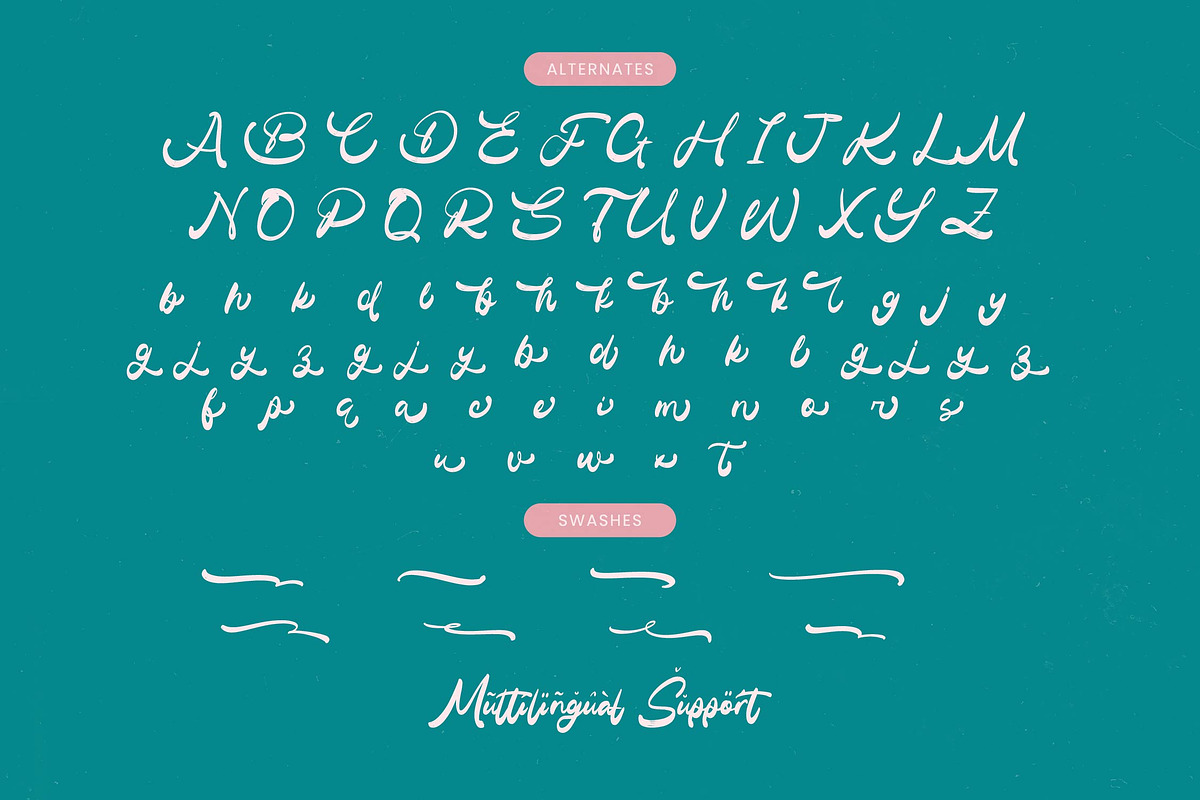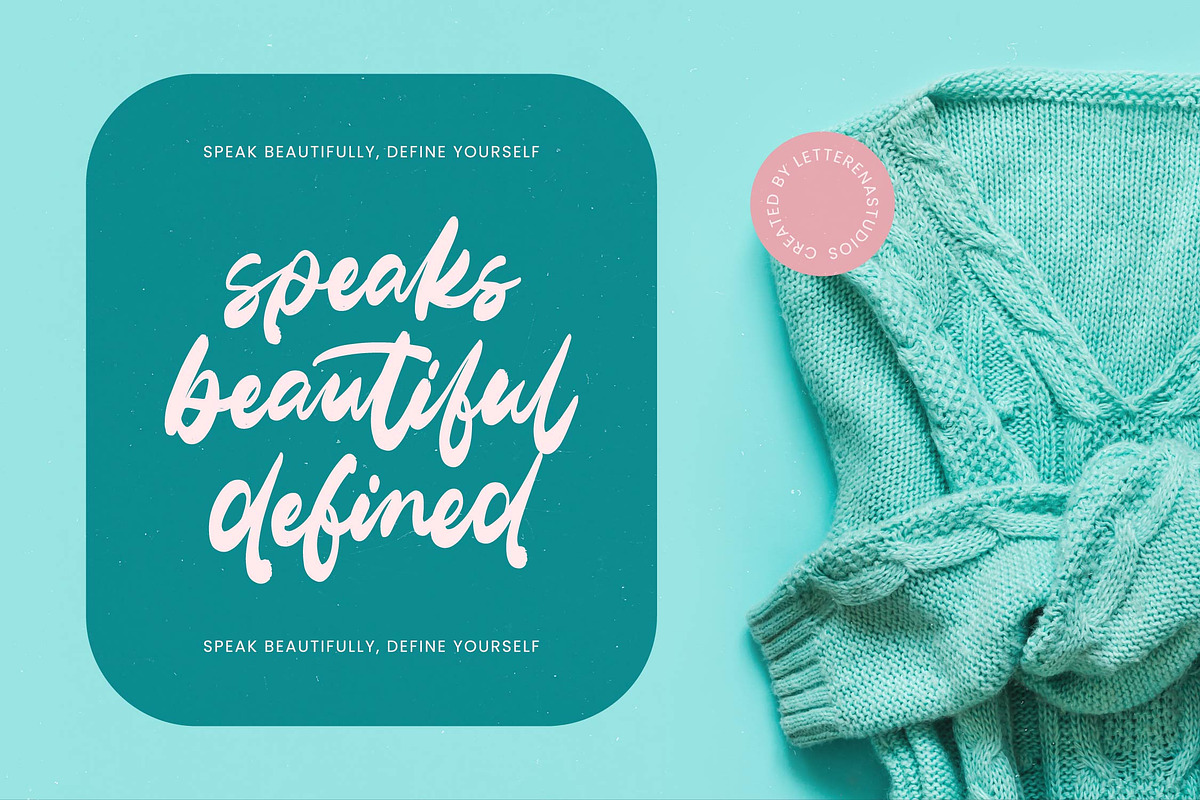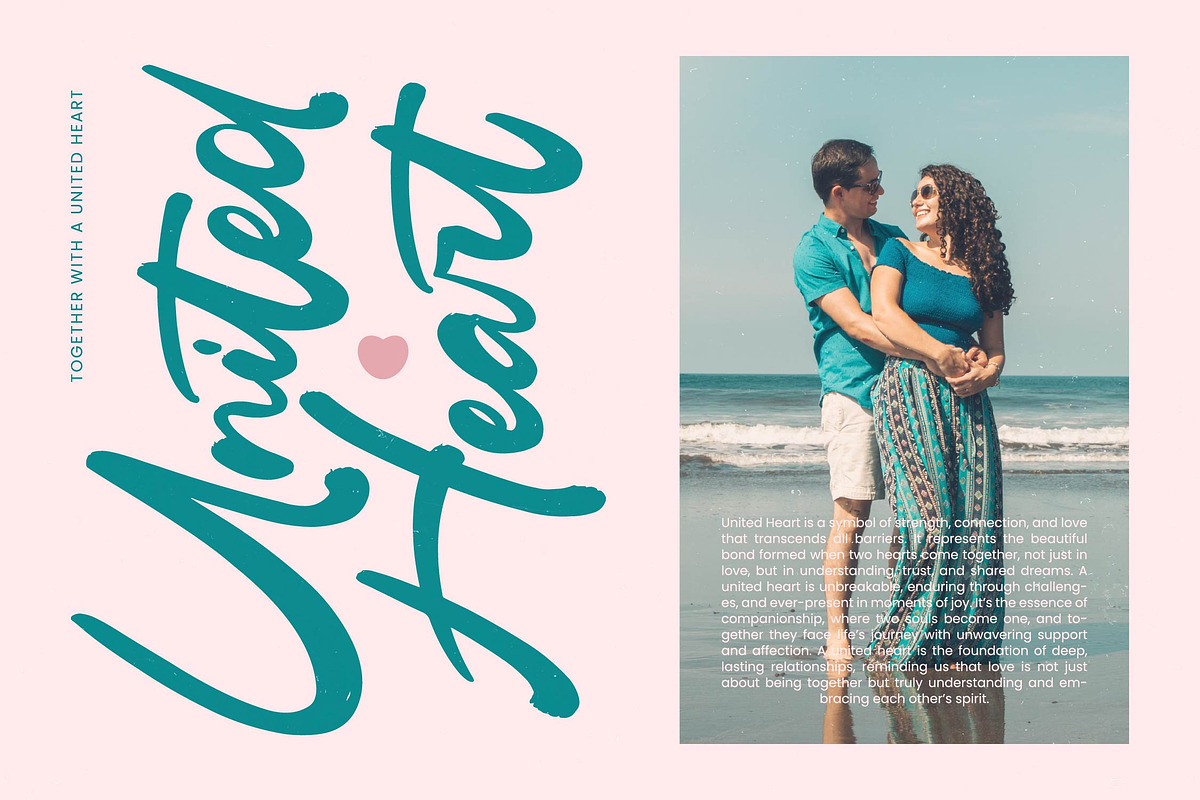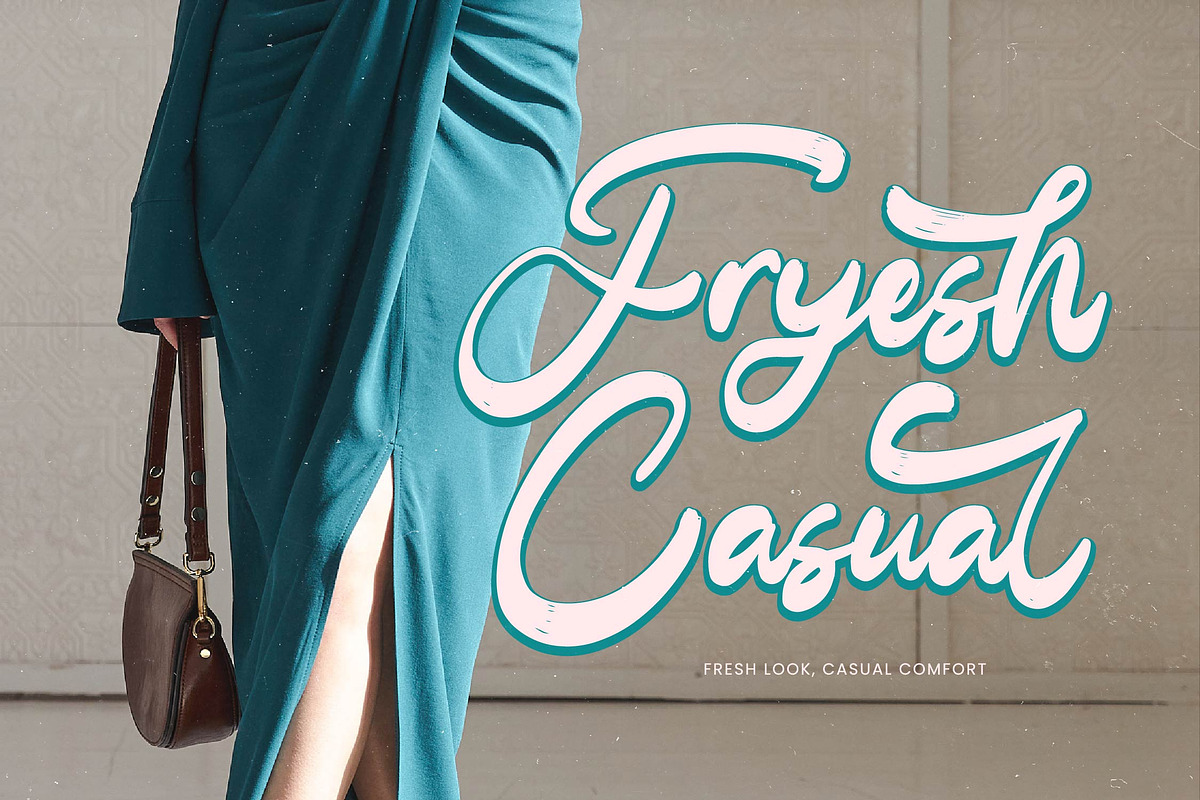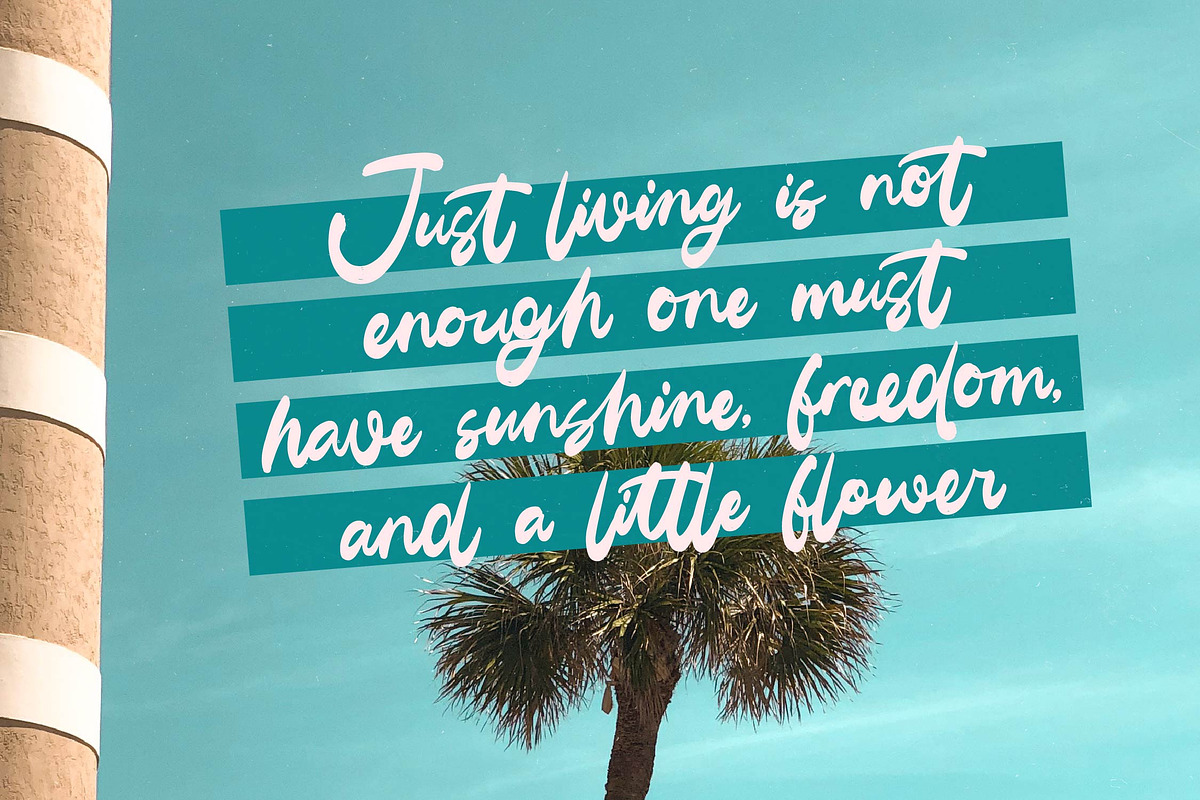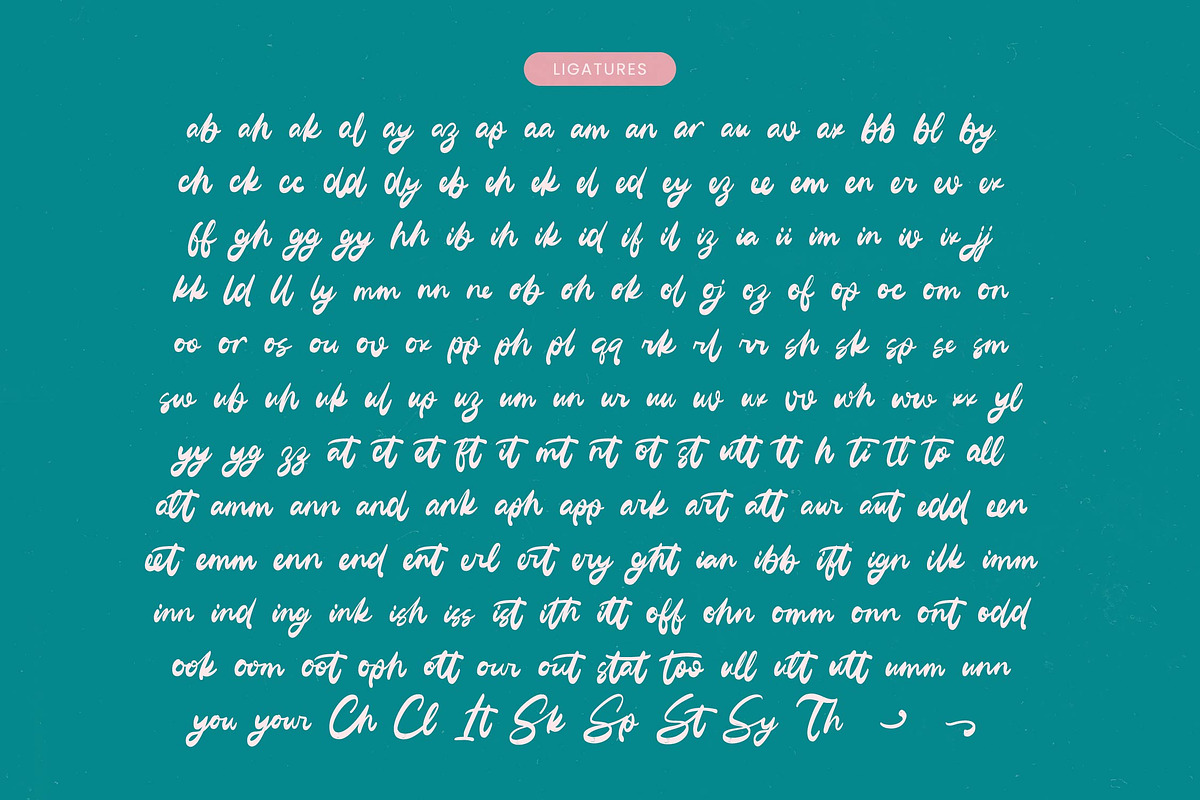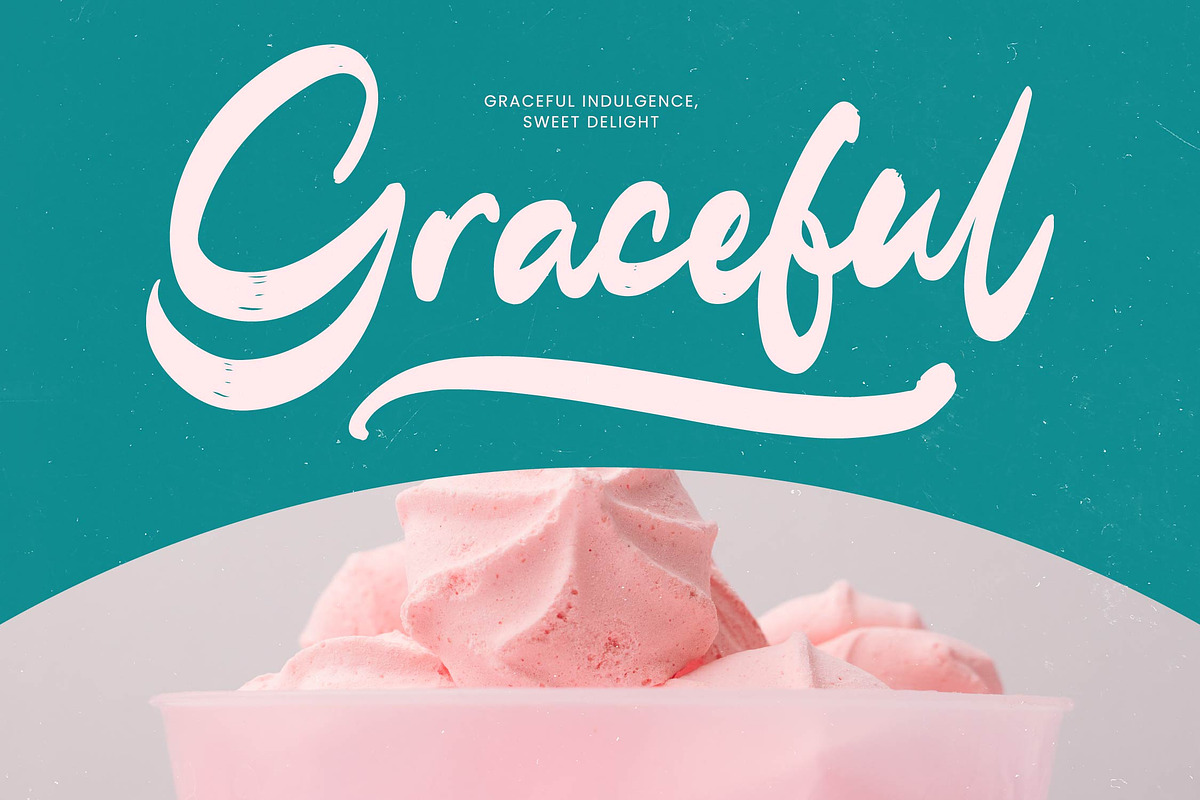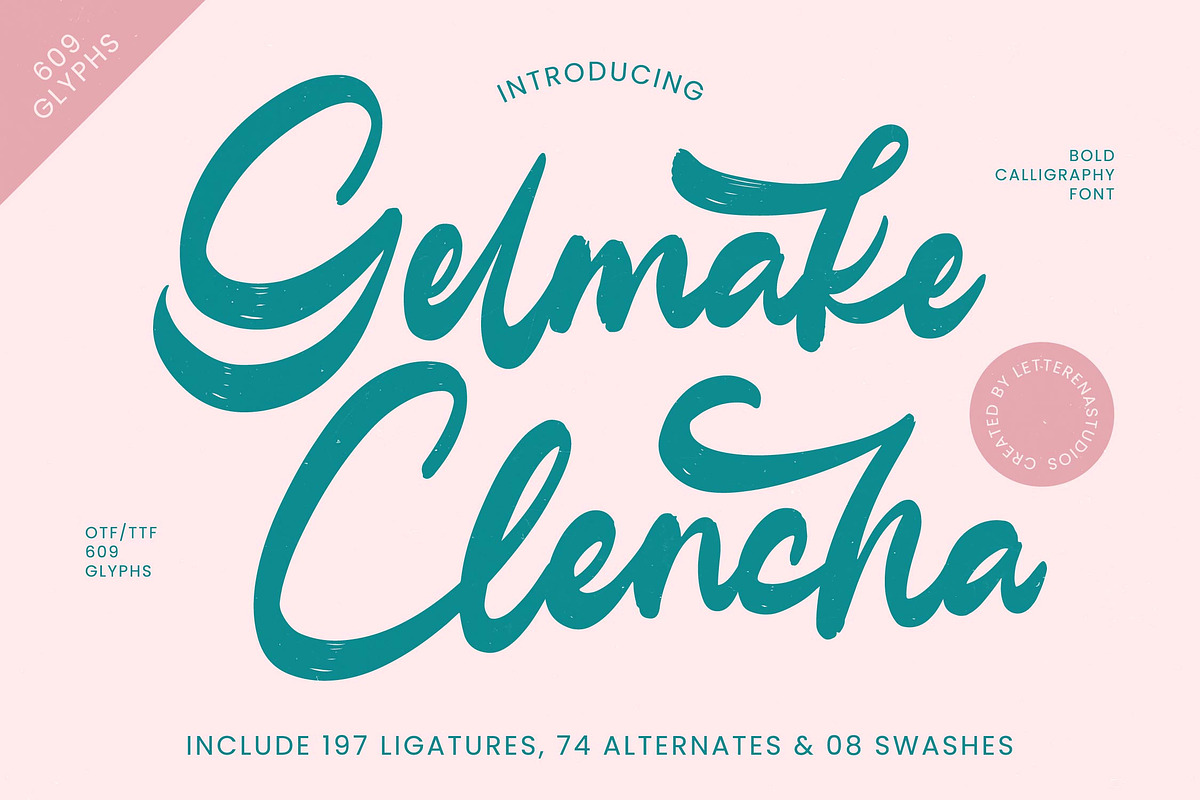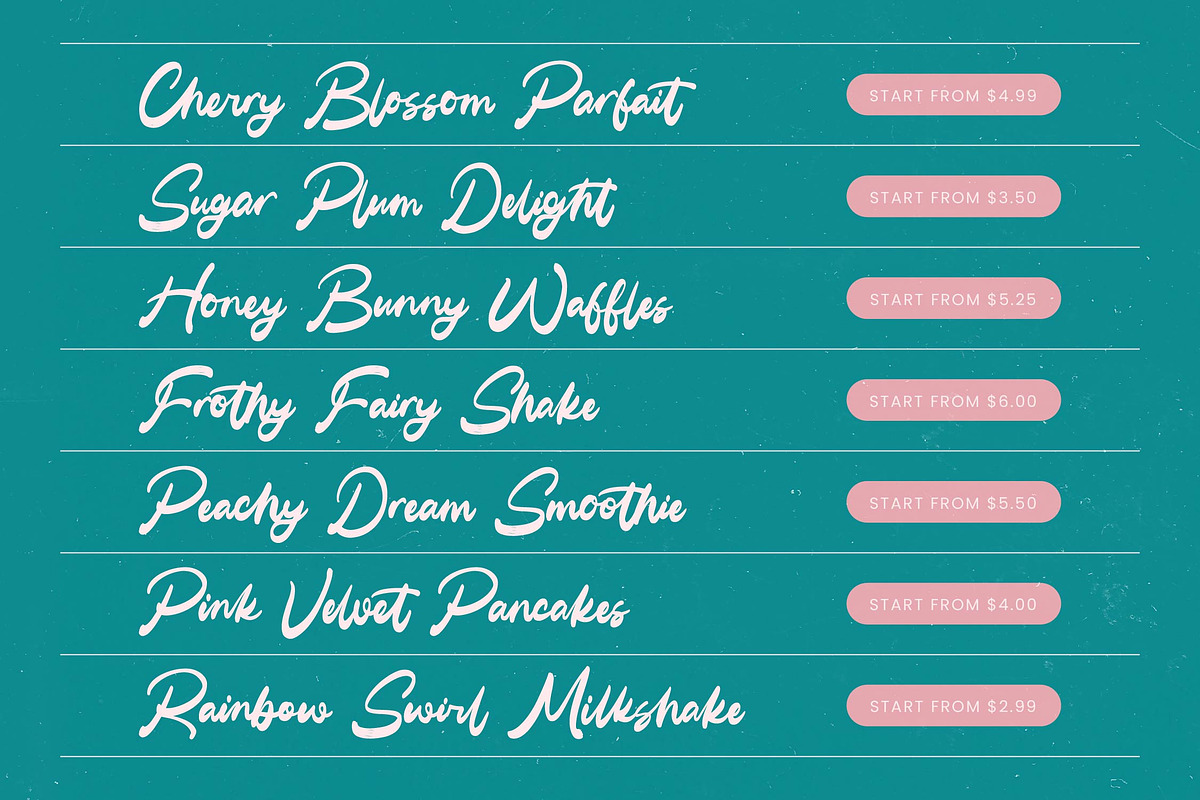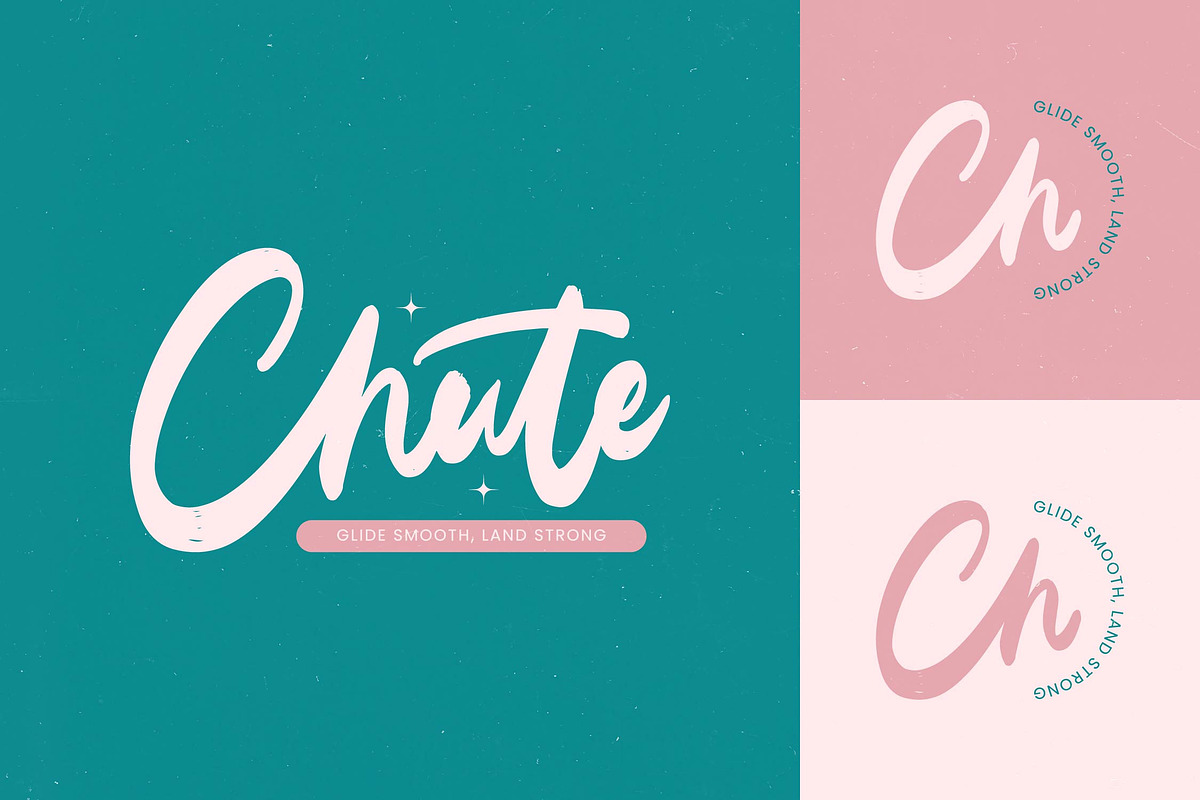
Gelmake Clencha Bold Calligraphy
Gelmake Clencha - Bold Calligraphy Font , from Letterena, is a Luxury Script font, suitable for any projects such as: logos, branding projects, homeware designs, product packaging, mugs, quotes, posters, shopping bags, t-shirts, book covers, name card, invitation cards, greeting cards, label, photography, watermark, special events, and all your other luxury and beautiful projects that need a Luxury Script taste.
- 197 Ligature 74 Alternate & 08 Swashes